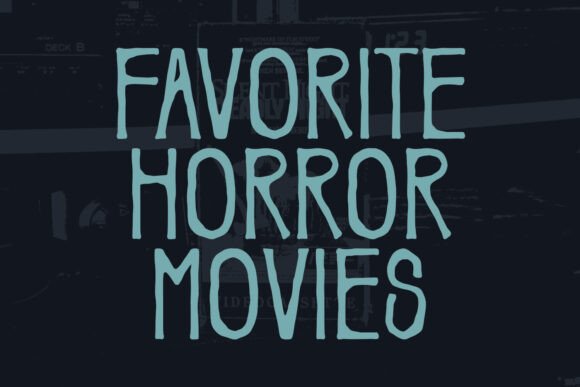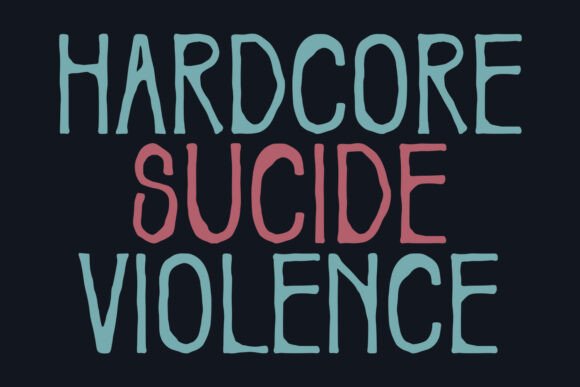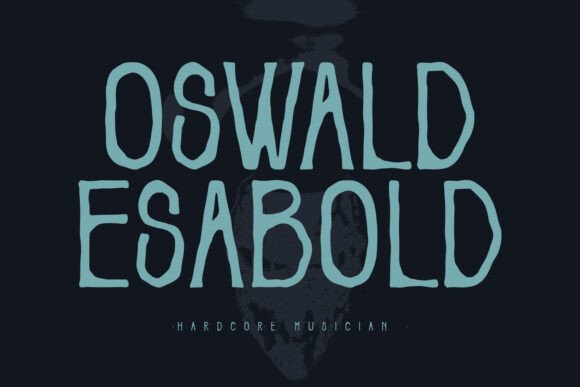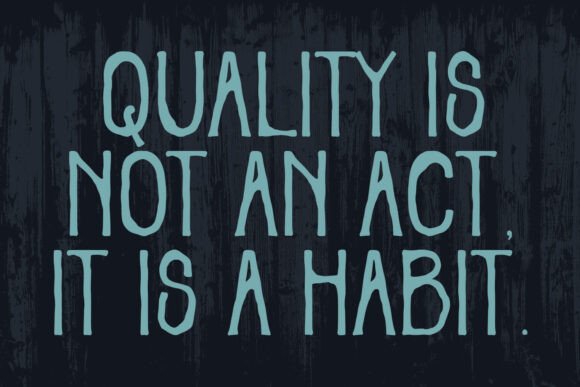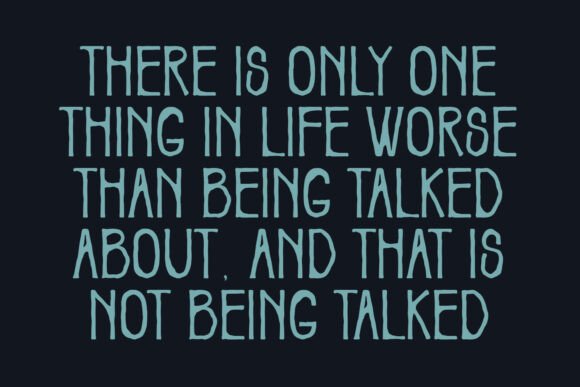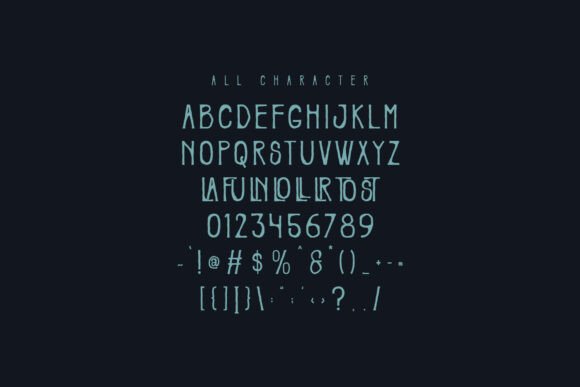
Introduction to Launitz Font
As a designer, there’s nothing quite like the thrill of bringing a creative project to life. You’ve got a vision, a message, and a deadline – and all that’s left is to find the perfect font to make it shine. That’s where Launitz Font comes in, a stylish and decorative display font that’s sure to elevate your designs to the next level.
With its elegant and artistic letter shapes, Launitz Font is the perfect addition to any design project. Whether you’re creating a logo, poster, invitation, or social media graphic, this high-quality font is sure to add a touch of sophistication and charm. And the best part? Launitz Font is available for free download, making it an invaluable design resource for creatives on a budget.
Key Features of Launitz Font
- High-quality font with a unique design, ideal for creative projects and design resources.
- Comes in a transparent background, allowing for seamless integration with various design elements.
- The font size is scalable, making it suitable for use in various design contexts, from small text to large headings.
- Launitz Font features a high resolution, ensuring crisp and clear rendering in digital and print designs.
- Its unique design and high-quality rendering make it an excellent choice for designers working on creative projects.
Honest Review: Launitz Font
I recently stumbled upon the Launitz Font, and I must say, it’s been a valuable addition to my design resource arsenal. This high-quality font is available for free download, which is a huge plus for any designer working on a tight budget.
One of the standout features of the Launitz Font is its versatility. It comes with a transparent background, making it perfect for use on a variety of creative projects, from logos to digital graphics. The font’s sleek and modern design is sure to elevate any design piece.
Overall, I’m impressed with the Launitz Font. While it has some limitations, its high-quality design and transparent background make it a valuable resource for designers working on creative projects.
Experiment with different font sizes, colors, and combinations to get the most out of Launitz Font. You can also pair it with other fonts to create a unique and eye-catching design.
The Launitz Font is perfect for creative projects such as:
Graphic design
Typography projects
Branding and logos